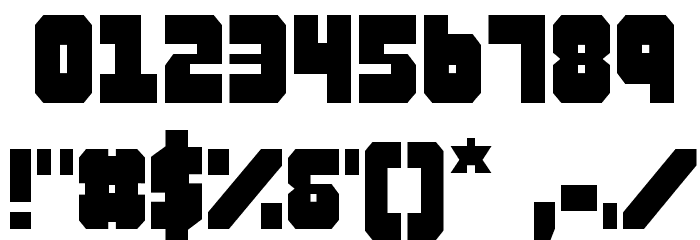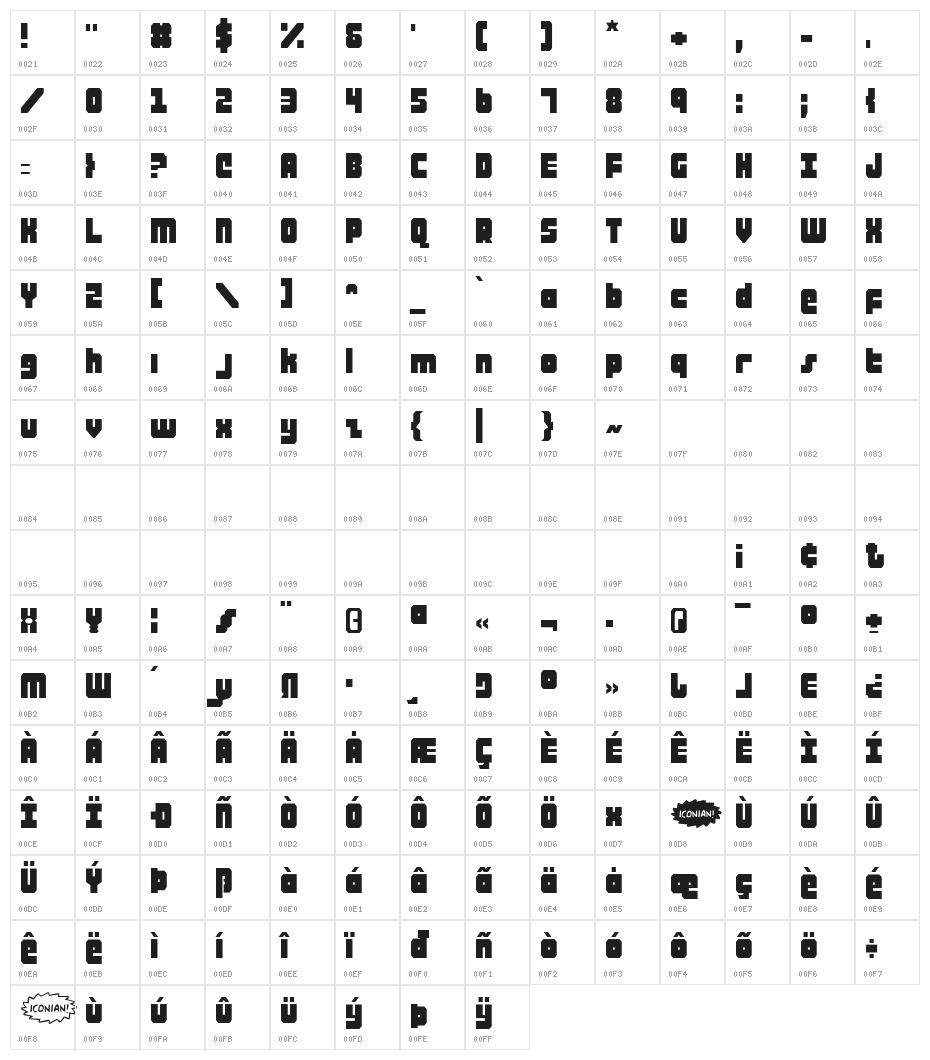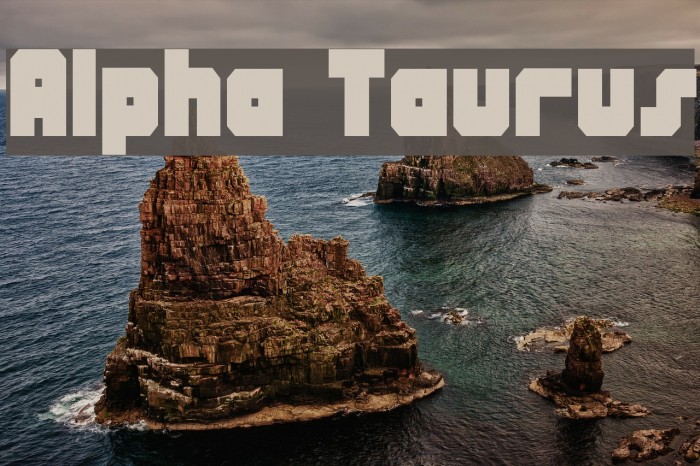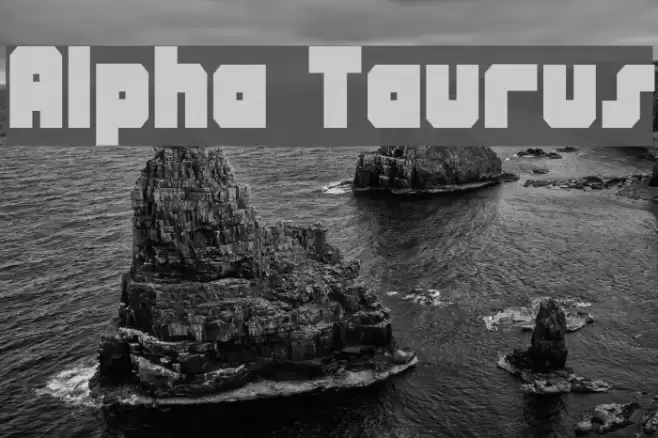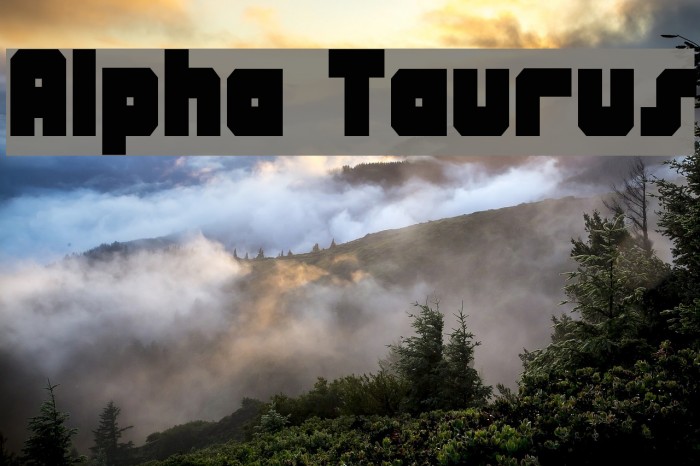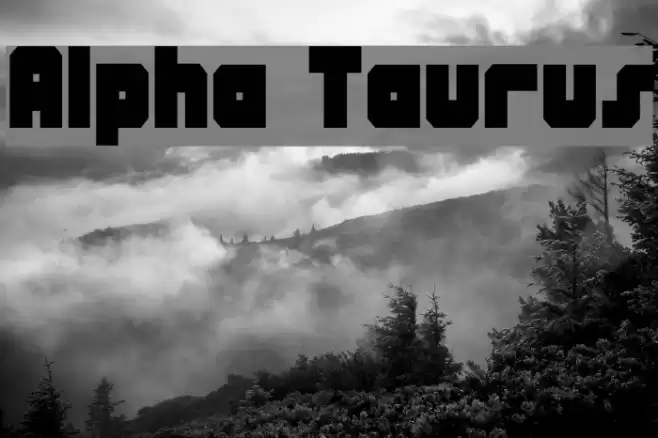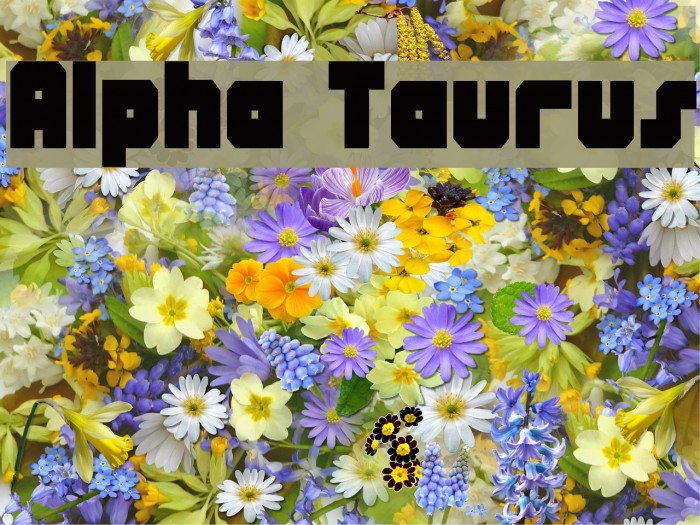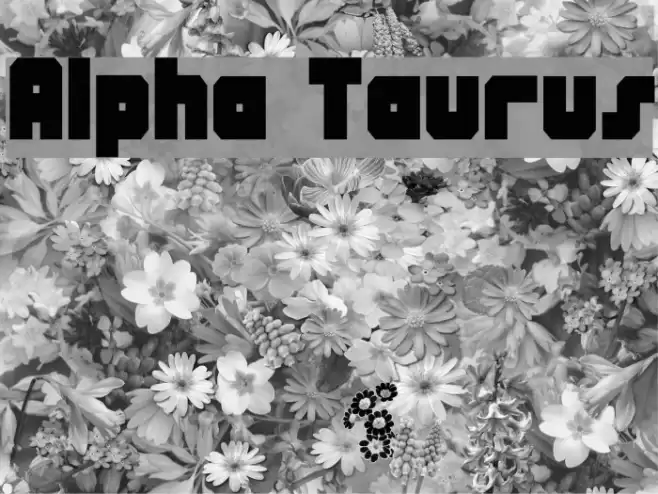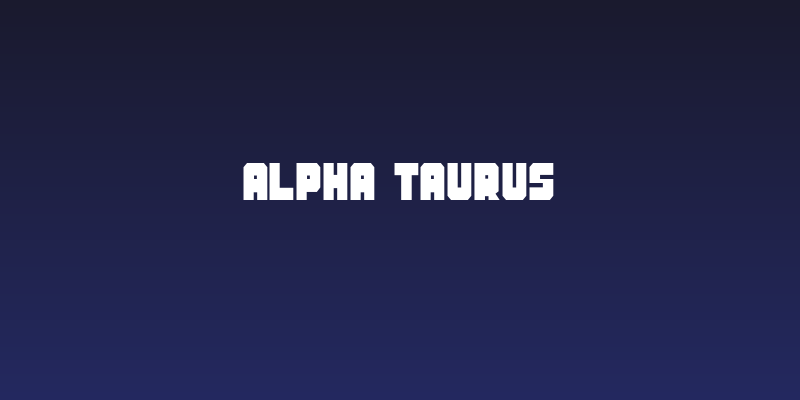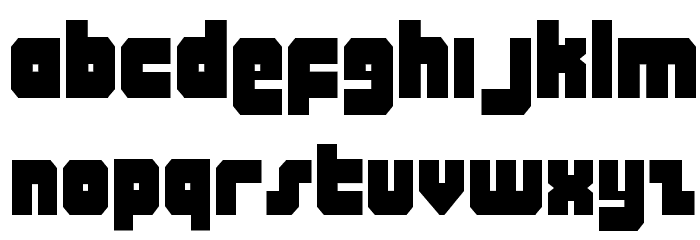
Alpha Taurus Font
Alpha Taurus Description
This font features a bold, geometric design with strong, angular lines and a blocky appearance. Each character is crafted with a uniform thickness, contributing to a cohesive and impactful visual style. The uppercase and lowercase letters maintain a consistent height, enhancing readability while preserving a unique aesthetic. The numerals and special characters are equally robust, designed to complement the overall structure. This font's distinct style makes it ideal for creating attention-grabbing headlines or logos. Its boldness and clarity ensure that it stands out in any design context.